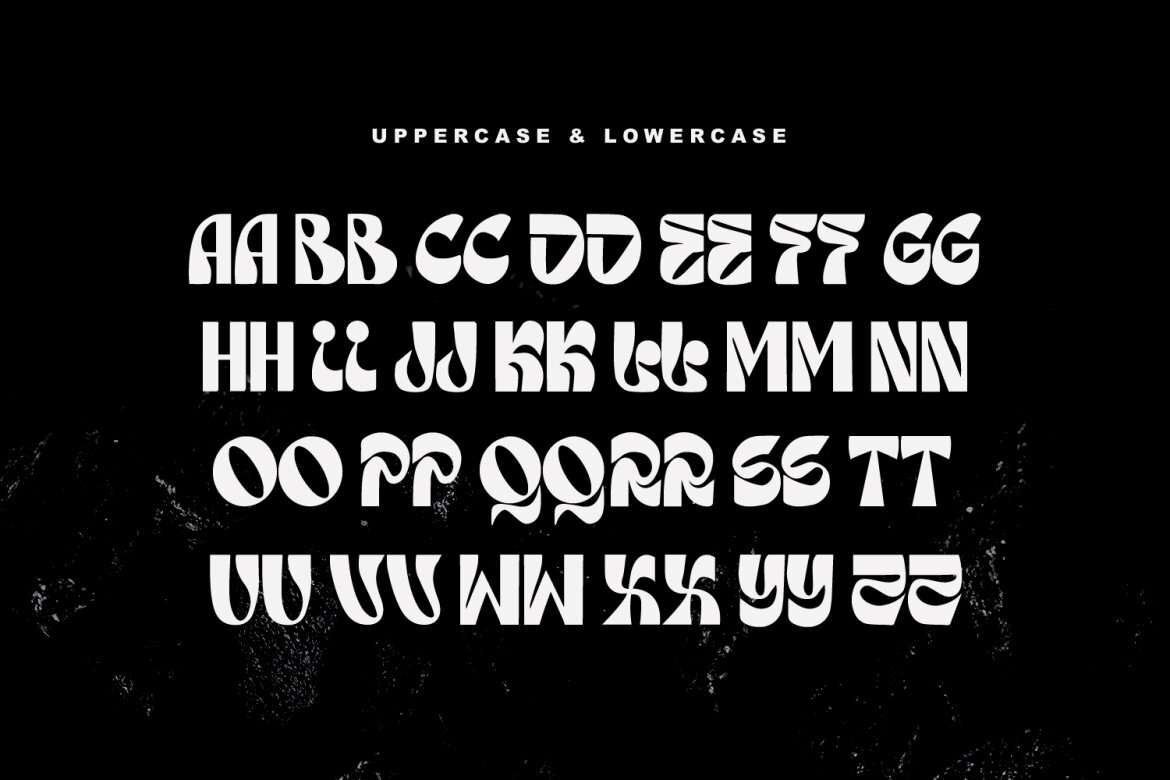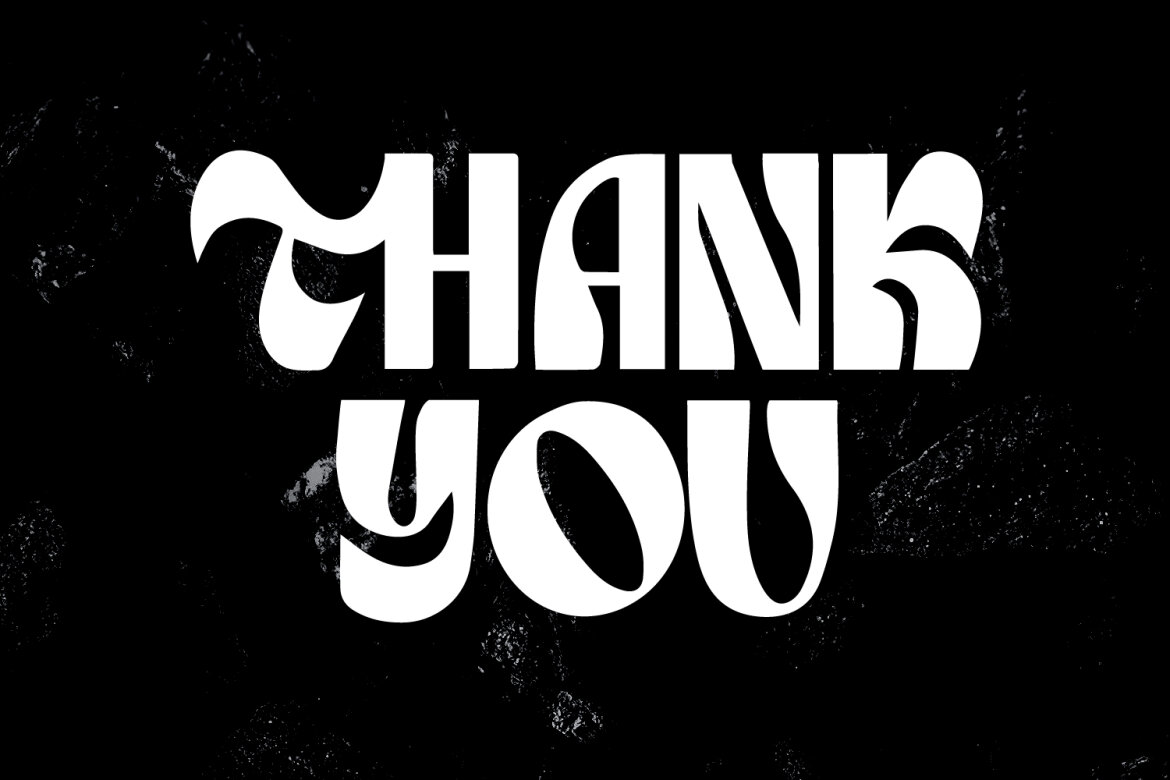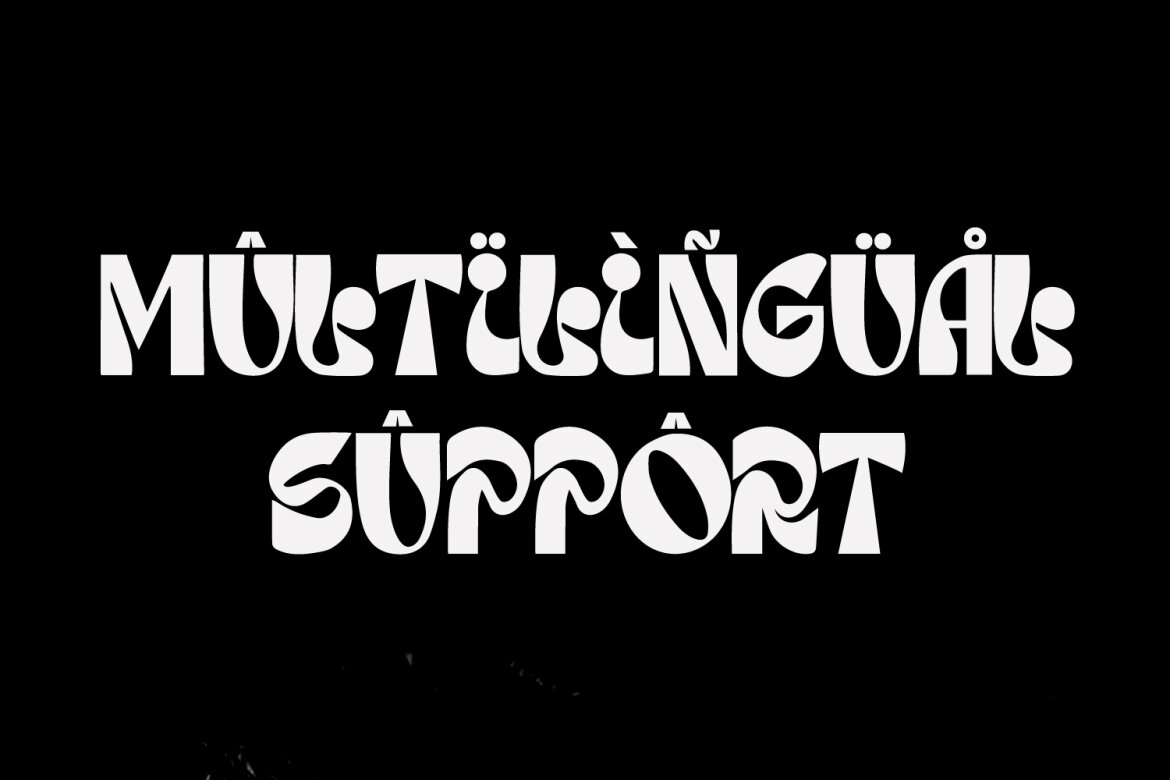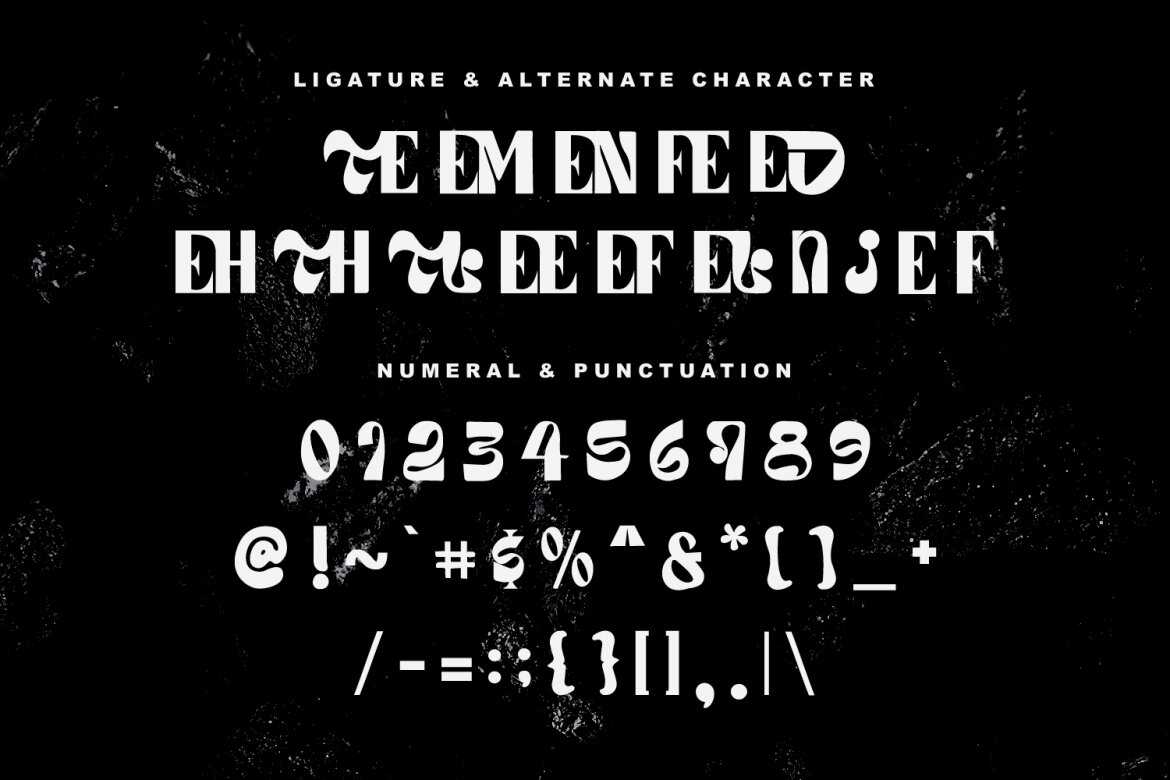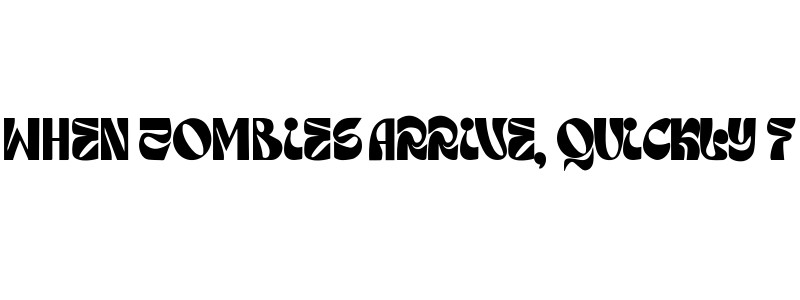
Roile Arnid Modern FREE Font
Roile Arnid
Roile Arnid a display font, fun character with a bit of ligatures. To give you an extra creative work. Roile Arnid font support multilingual more than 100+ language.